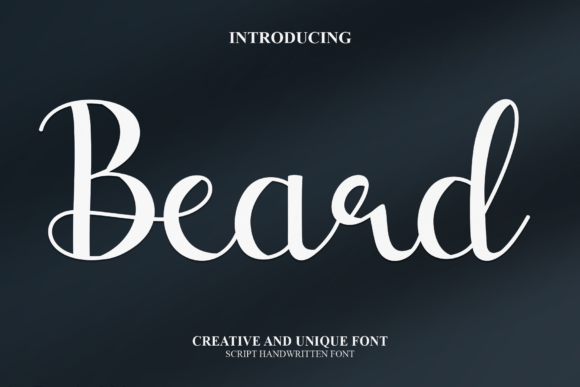
Introducing Beard Font: The Epitome of Elegance and Sophistication
Experience the allure of Beard Font, a captivating script font that exudes grace and modernity, meticulously crafted by the visionary William Jhordy. Designed to elevate your creative projects to new heights, Beard Font strikes the perfect balance between thin and bold, showcasing a harmonious blend of variation and poise.
Immerse yourself in the world of visual artistry as you witness Beard Font transform your words into captivating works of art. Its contemporary feel adds a touch of elegance to any design, while its perfect form ensures impeccable clarity and readability. Whether you're creating logos, branding materials, invitations, or social media graphics, Beard Font will effortlessly elevate your projects, leaving a lasting impression on your audience.
Step into a realm of creative possibilities as you explore the versatility of Beard Font. Its carefully crafted characters dance across the page, adapting seamlessly to a wide range of design styles. From formal and classic to playful and whimsical, Beard Font's versatility knows no bounds. Unleash your imagination and let your creativity soar as you witness your designs come to life with renewed vigor and sophistication.
Indulge in the beauty of Beard Font's intricate details, each stroke and curve meticulously designed to evoke a sense of timeless elegance. Its balanced letterforms create a visually pleasing rhythm, drawing the eye and captivating the reader. Let Beard Font elevate your designs, adding a touch of sophistication and charm that will leave your audience spellbound.
Embrace the power of Beard Font and unlock a world of design excellence. Its contemporary style and perfect form will transform your projects into masterpieces, leaving a lasting impression on all who encounter them. Experience the magic of Beard Font today and elevate your creative journey to new heights of success.